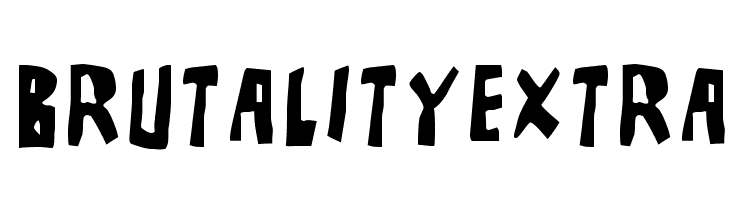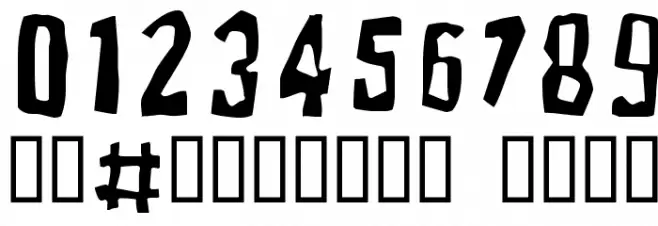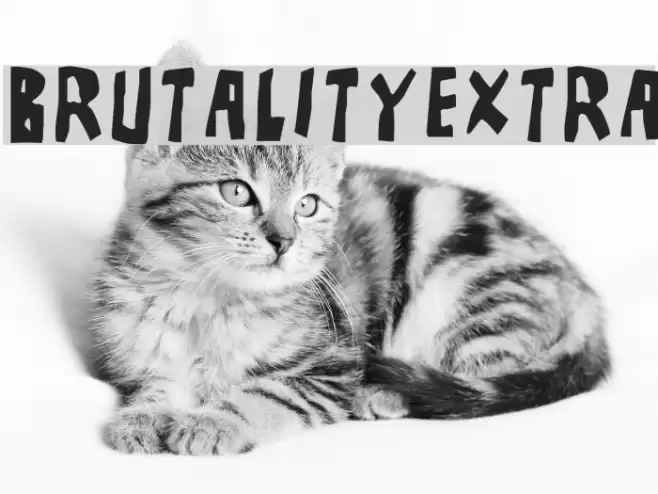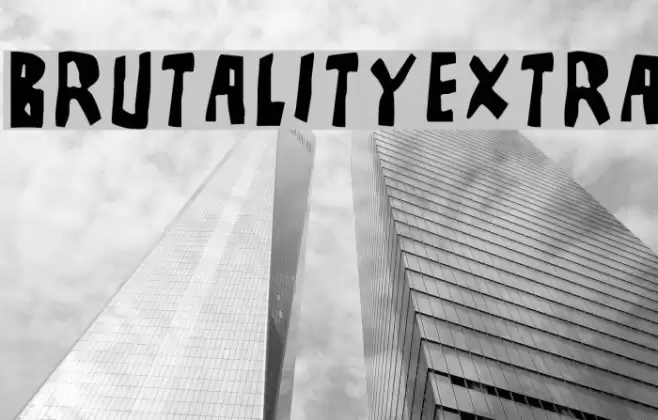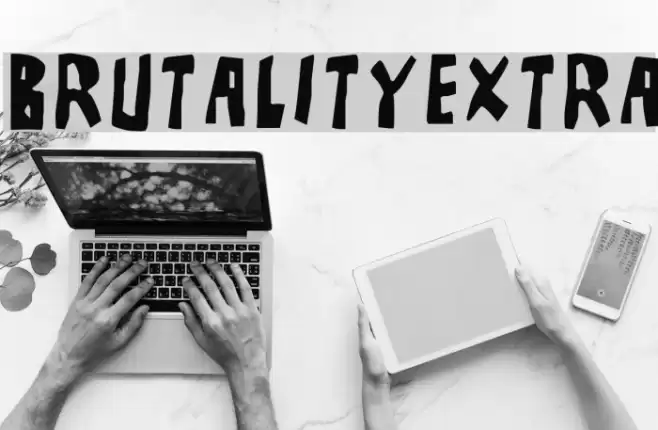
BrutalityExtra Font
BrutalityExtra Description
This font features a bold and rugged design, characterized by its irregular and angular letterforms. The letters have a hand-cut appearance, giving them a raw and edgy feel. The uppercase and lowercase letters maintain a consistent style, with sharp edges and varying stroke widths that add to the font's dynamic nature. The numbers and special characters follow the same aesthetic, ensuring a cohesive look across all text elements. This font's unique style makes it stand out, perfect for projects that require a strong and impactful visual presence.
| Overall Style | Modern, Edgy |
| Proposed Projects | Ideal for poster designs, album covers, branding for edgy or alternative products, and any project needing a bold statement. |